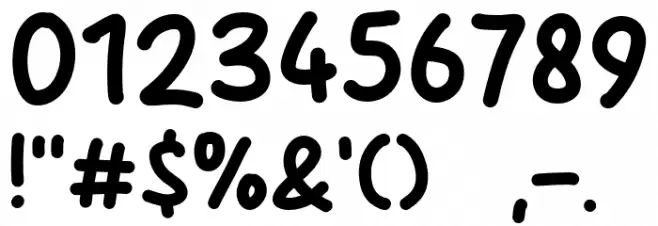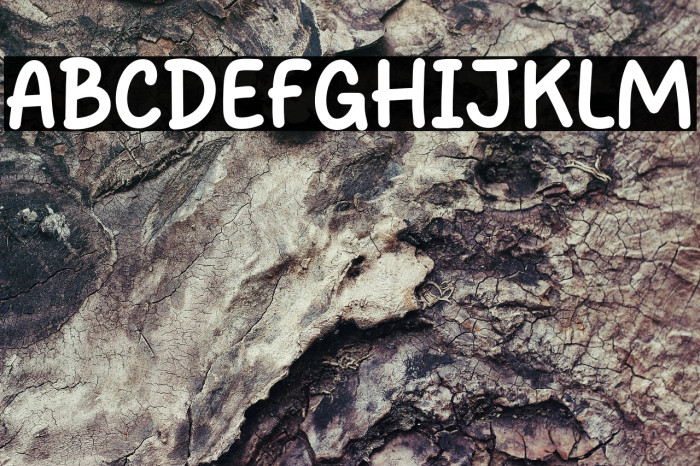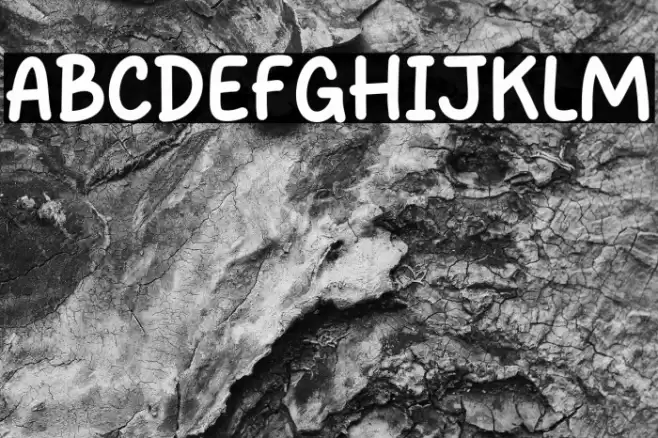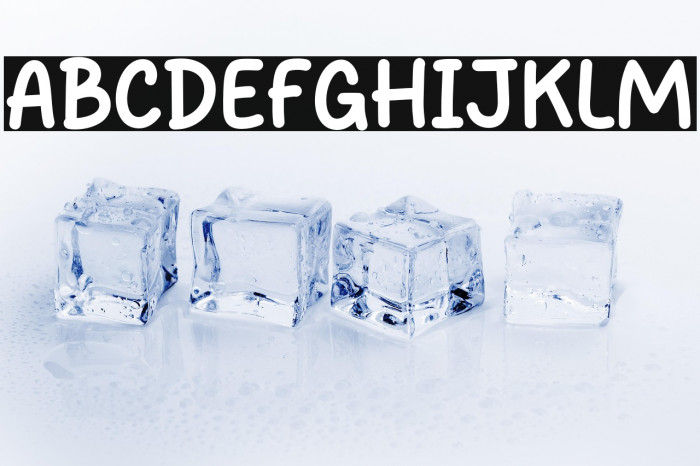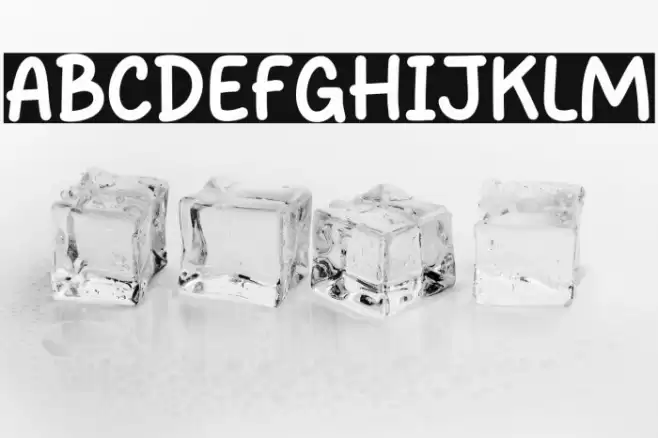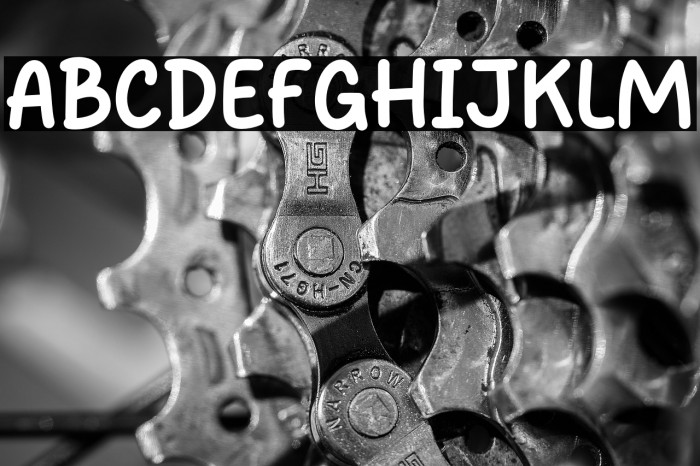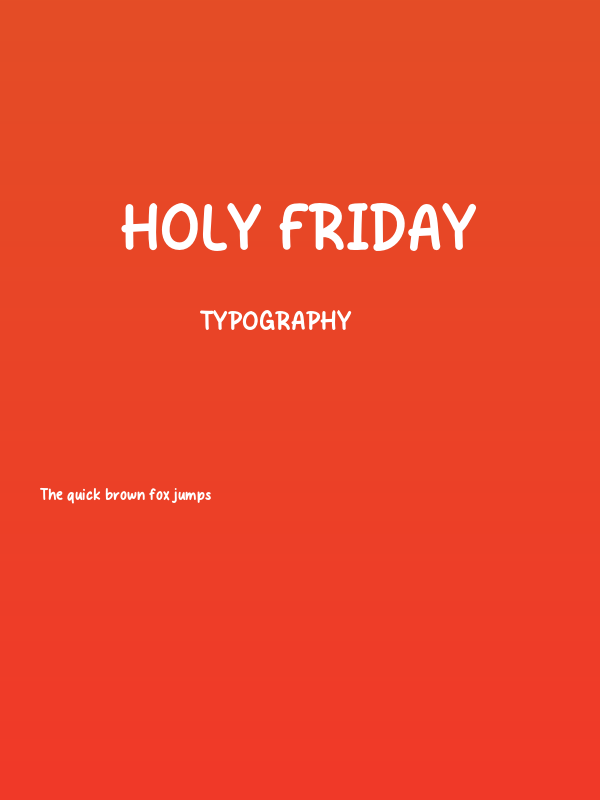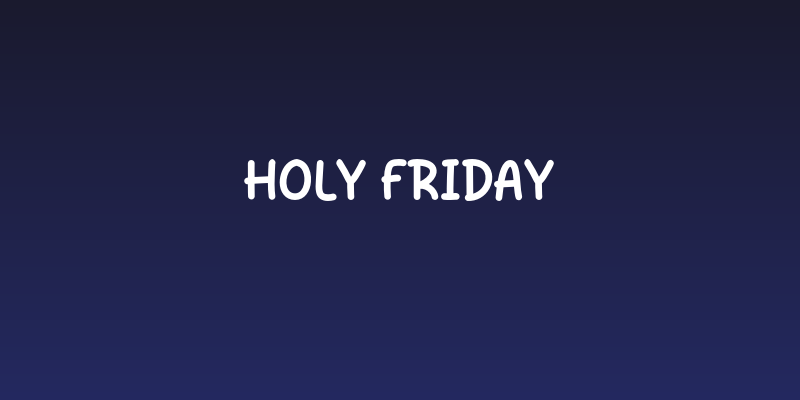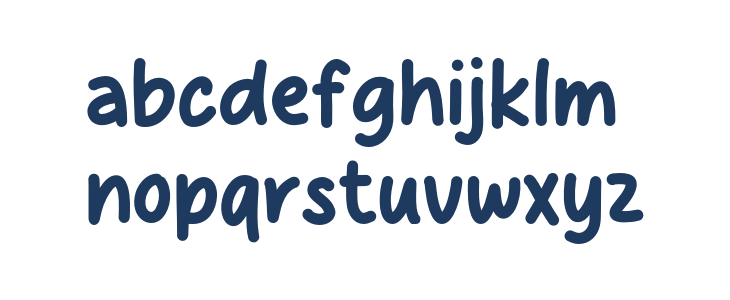
Holy Friday Font
Holy Friday Description
This playful and rounded font exudes a casual and friendly vibe, characterized by its smooth curves and slightly irregular strokes. The letters are bold and have a handwritten feel, making them approachable and informal. The uppercase and lowercase letters maintain a consistent style, with a slight tilt that adds to the font's dynamic appearance. The numbers and special characters are equally rounded, ensuring a cohesive look across all elements. This font is ideal for projects that require a personal touch, such as invitations, greeting cards, or children's book titles.
| Proposed Projects | Ideal for invitations, greeting cards, children's books, and playful branding. |